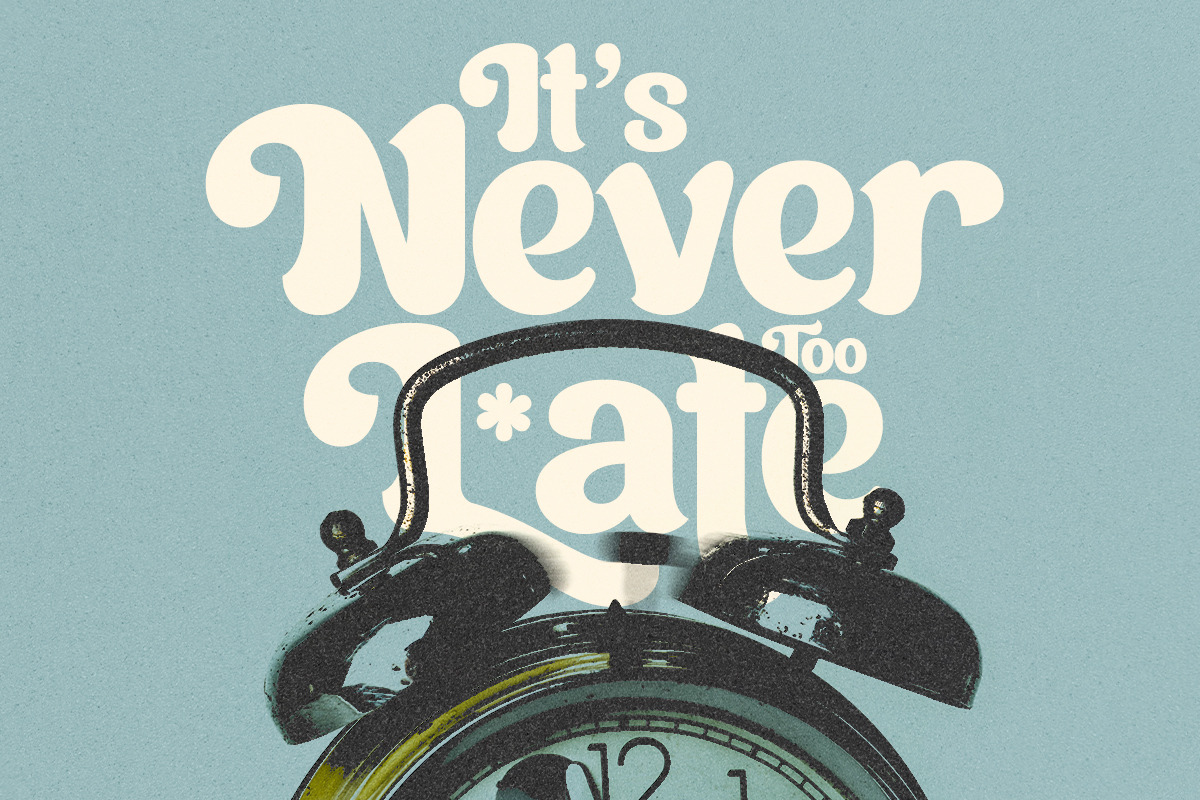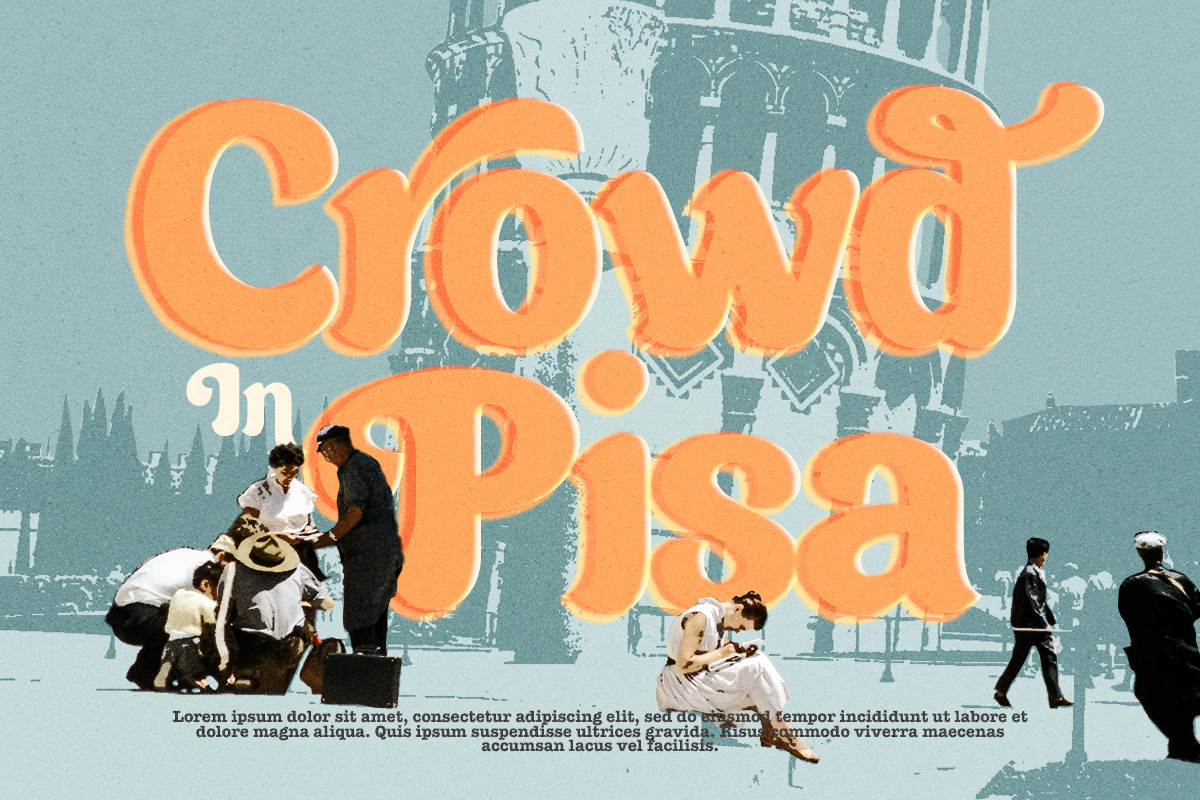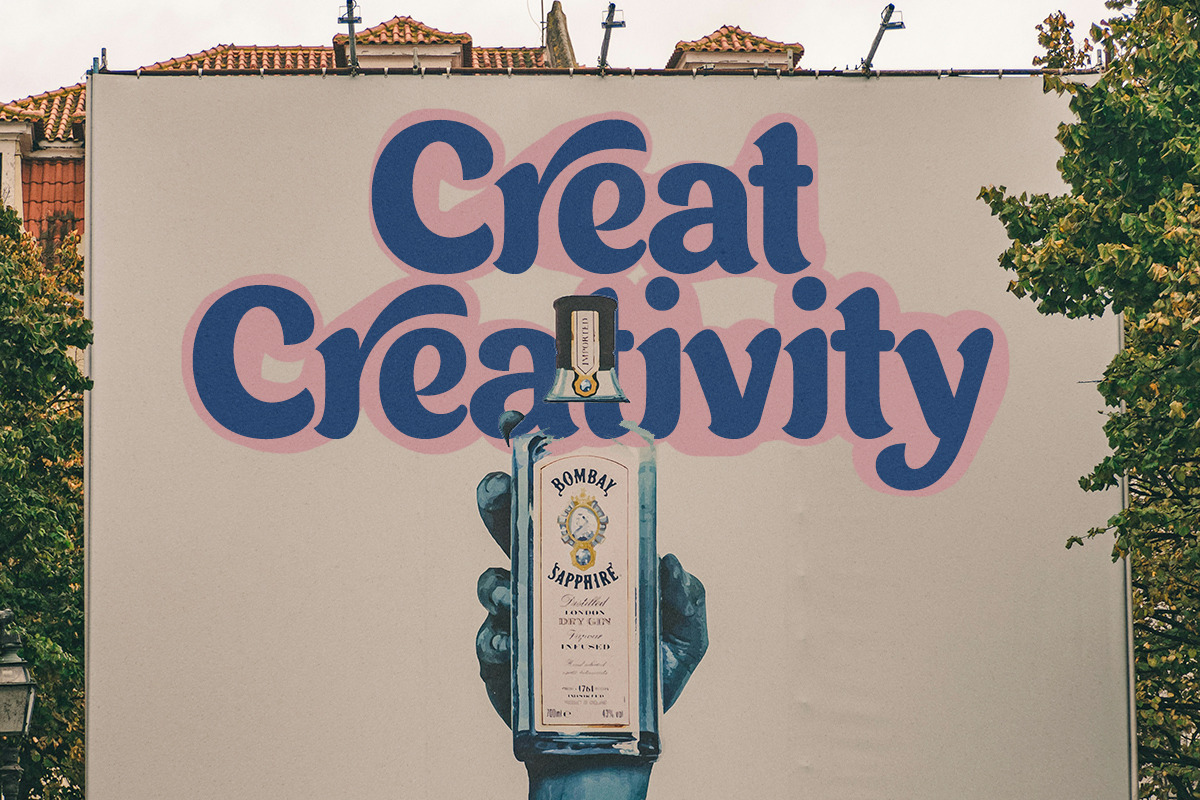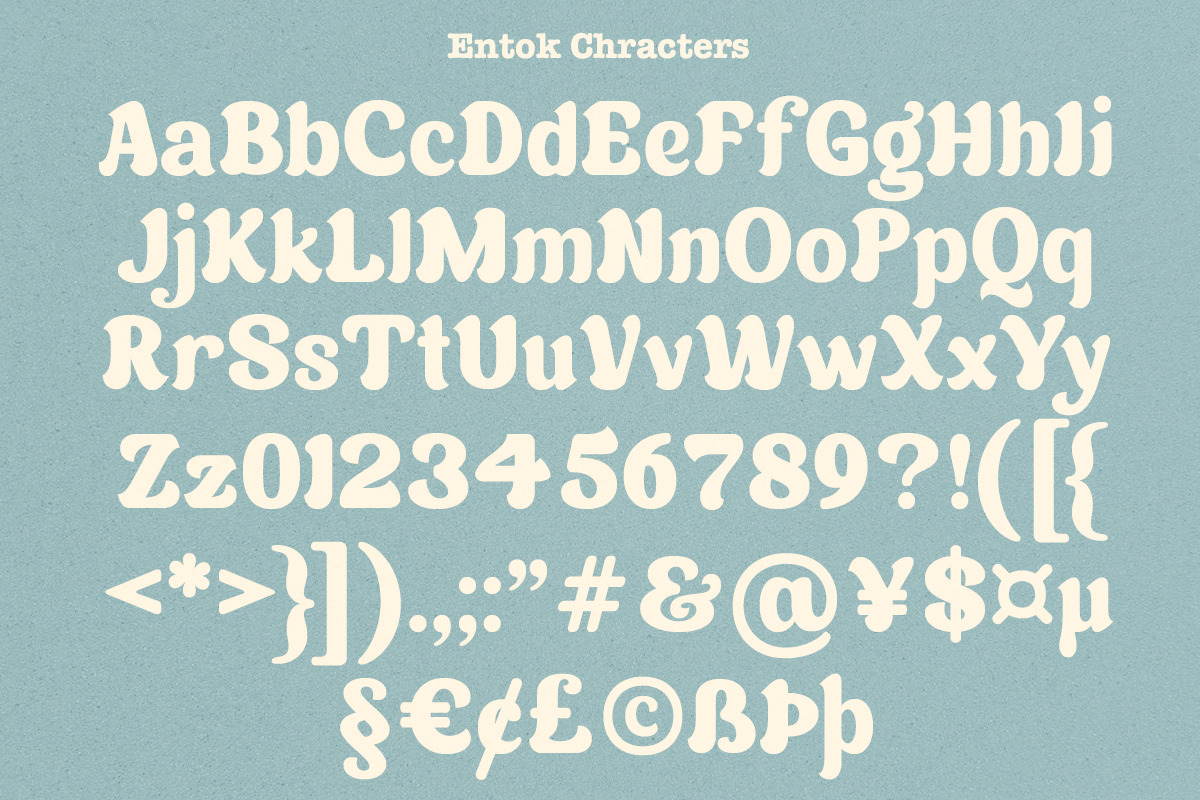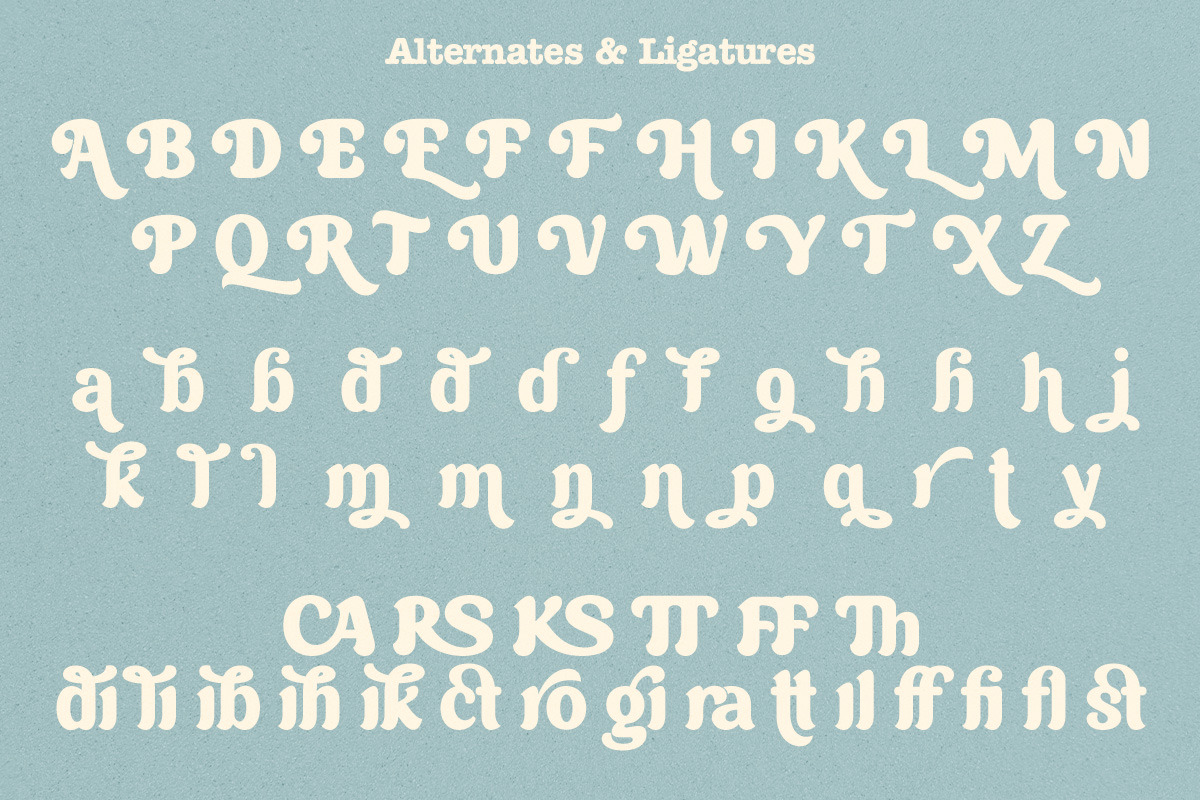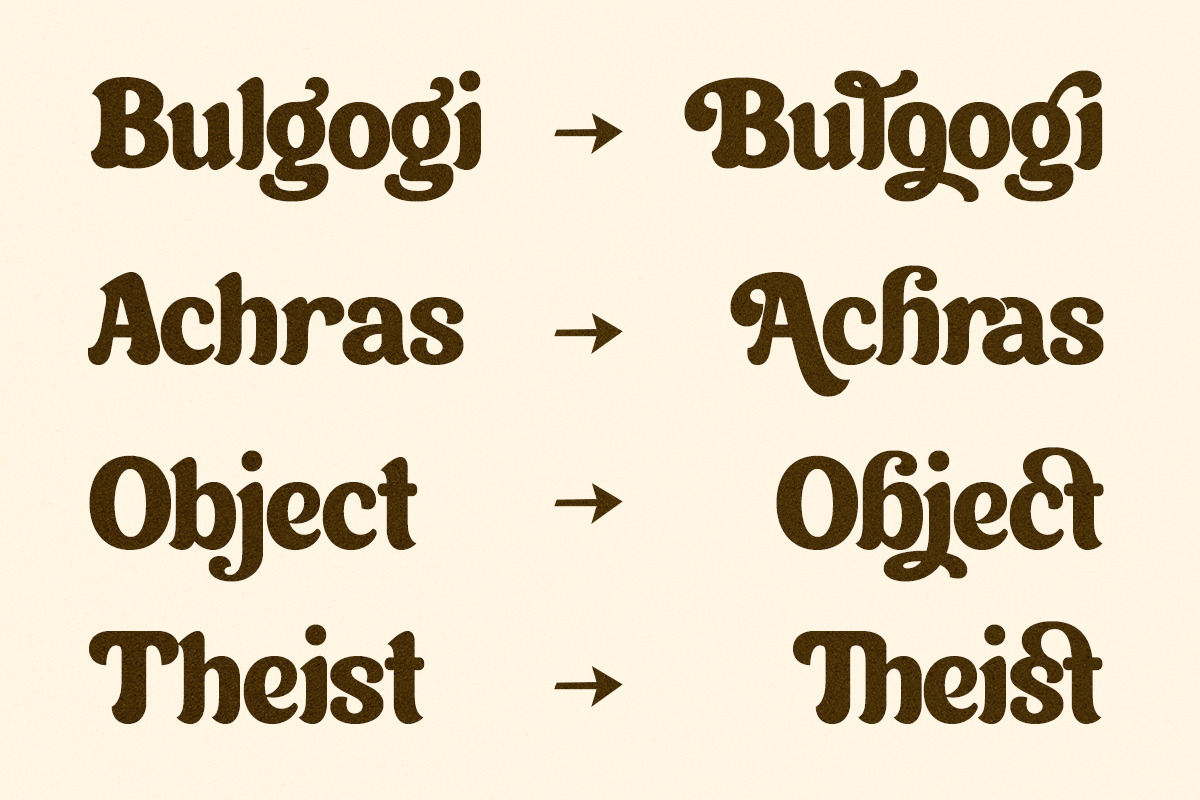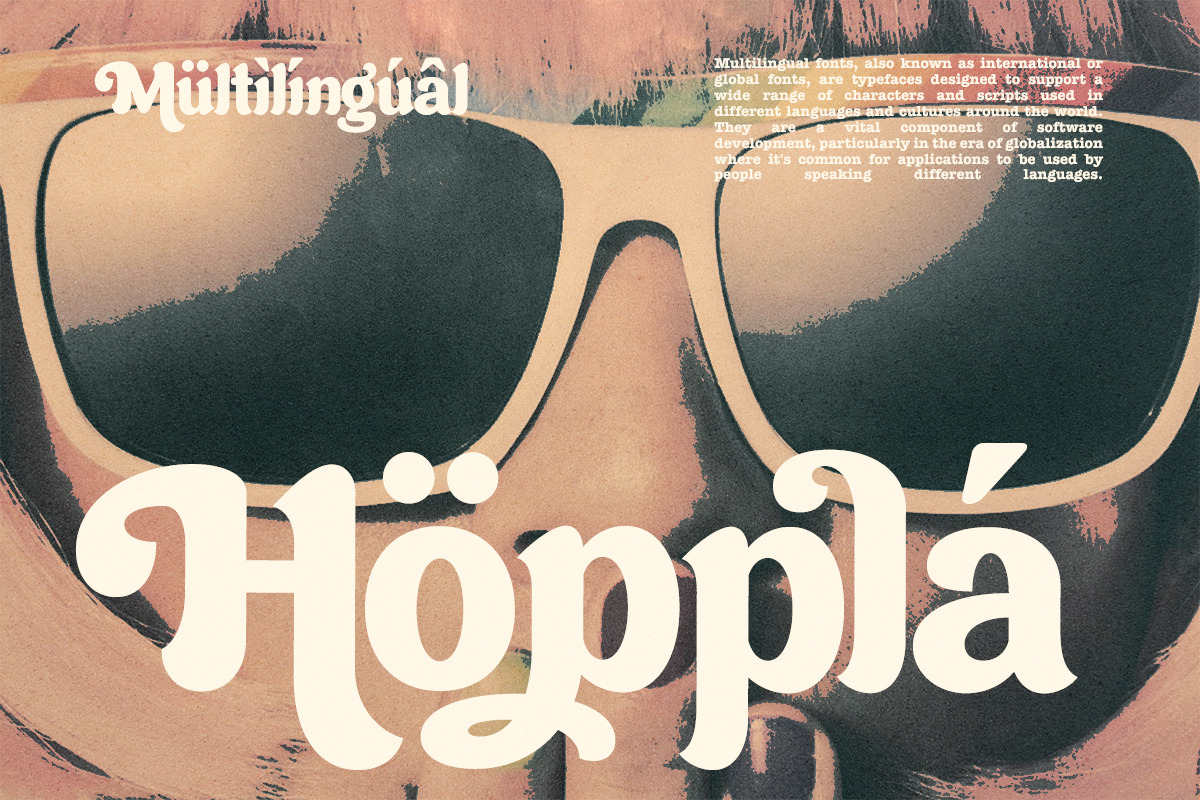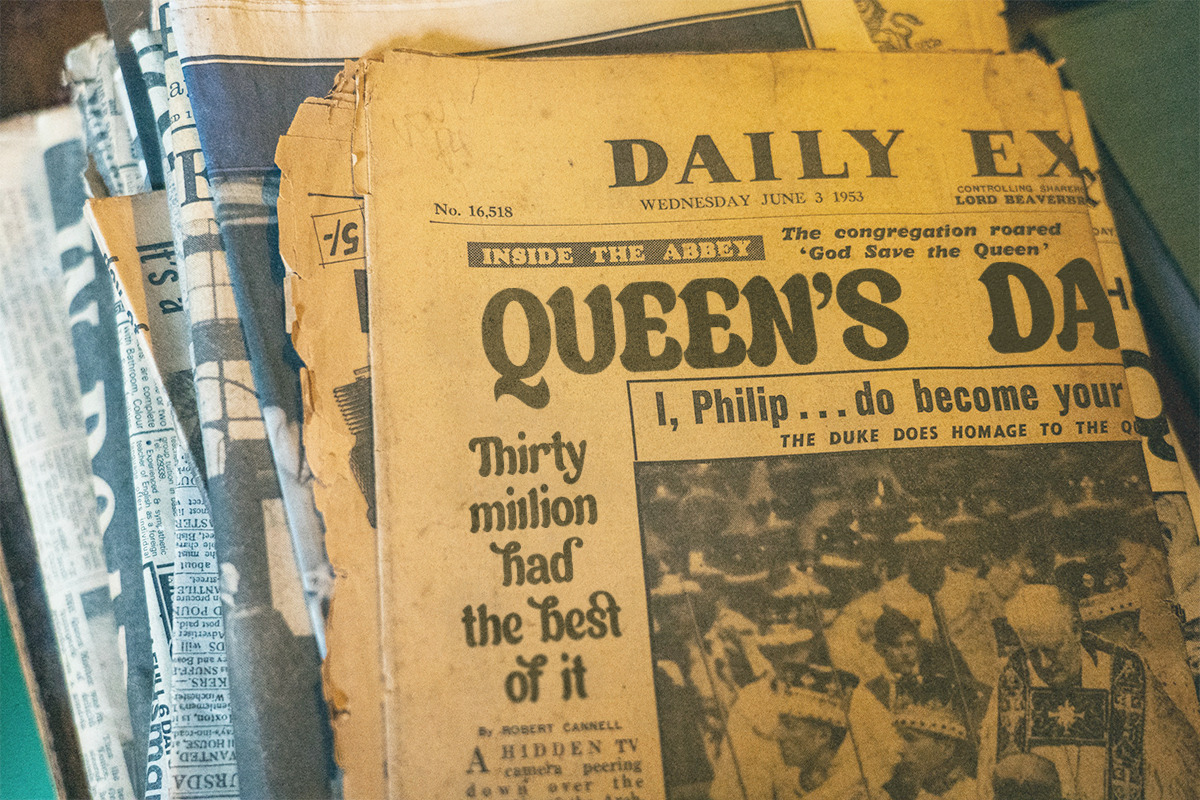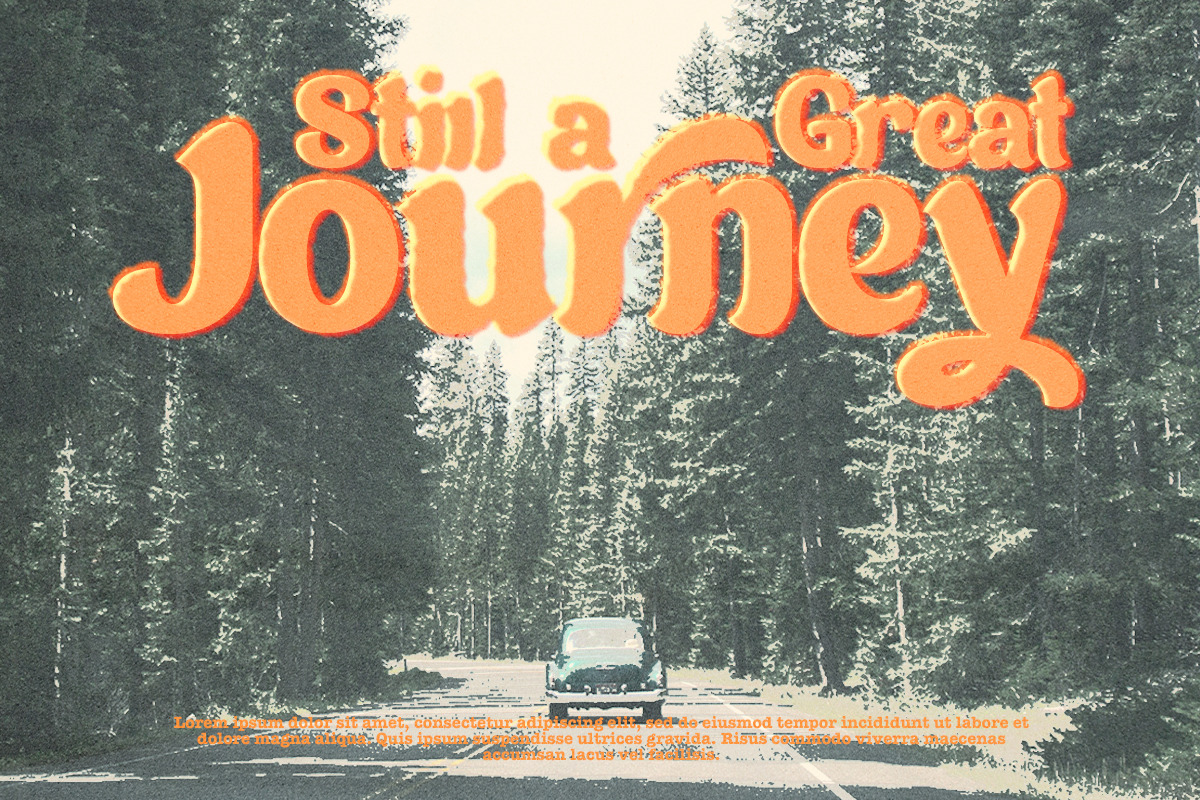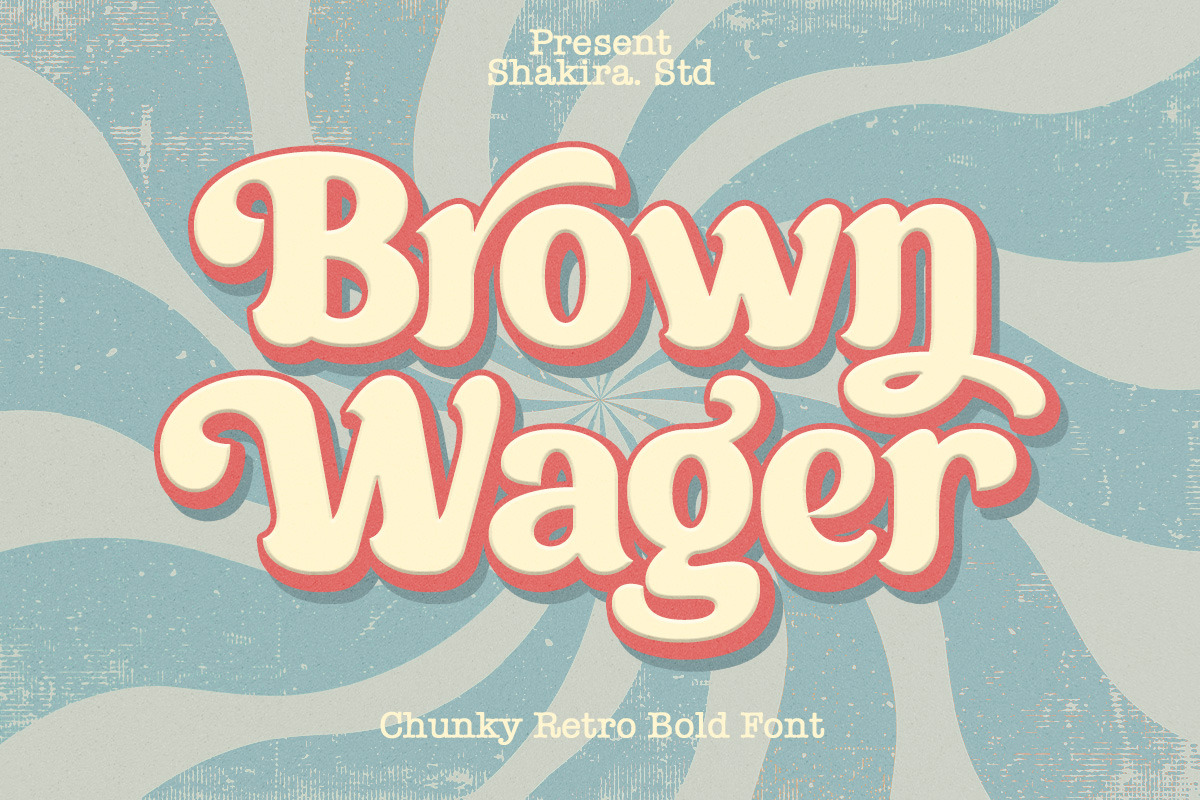
Brown Wager - Chunky Retro Bold Font
Introducing Brown Wager - The Chunky Bold Retro Serif Font with Unique Character!
Brown Wager is not just a font; it's a robust tribute to vintage design with a modern twist. Perfectly capturing the essence of #RetroFonts and #TypographyTrends, Brown Wager is designed to make a bold statement.
With its chunky, bold serif characters and stylish alternates, Brown Wager adds a distinctive and nostalgic flair to any project. Whether you're working on standout logos, eye-catching posters, or dynamic branding materials, Brown Wager ensures your designs are memorable and impactful.
- Opentype features ( ligature, alternate )